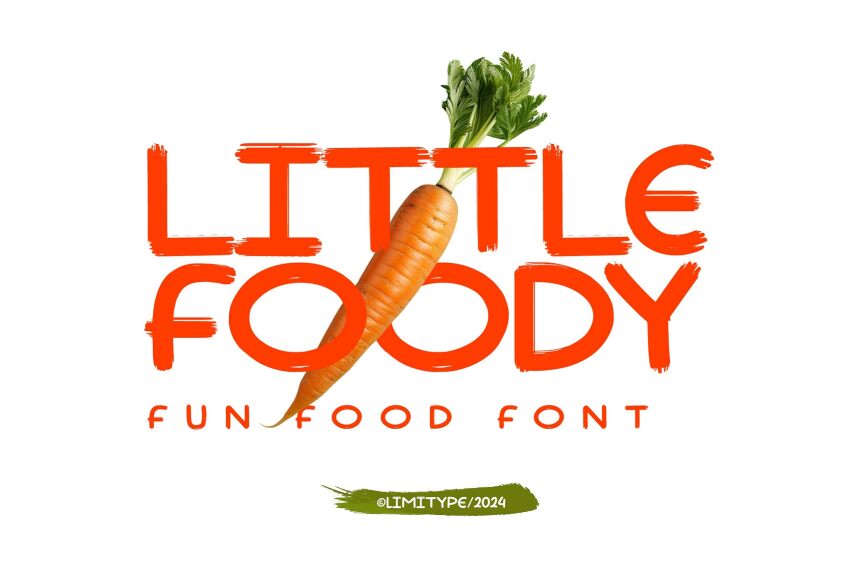
Little Foody font, designed by Limitype, embodies the whimsical charm of hand-painted brush strokes. Its bold and dramatic presence captures attention with playful energy and creativity. The playful, expanded characters create a sense of liveliness, making it perfect for projects that call for warmth and approachability.
Visually striking, Little Foody stands out in both branding and promotional materials, effortlessly enhancing menus, food packaging, or casual event invitations. Its unique aesthetic makes it an ideal choice for anything related to culinary delights or friendly gatherings. This font invites engagement while radiating a delightful personality that resonates with audiences seeking authenticity and fun. Whether it’s for digital designs or print applications, Little Foody brings a cheerful flair that invigorates every project.